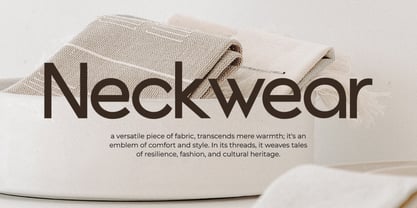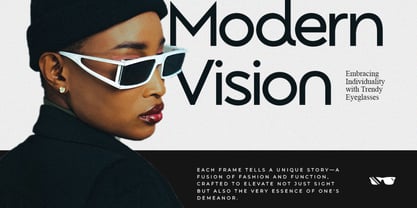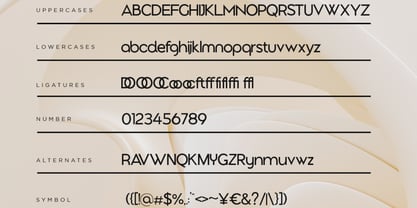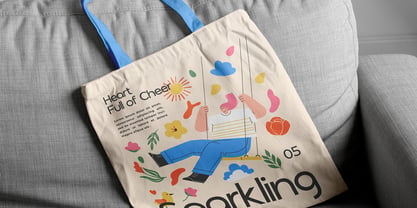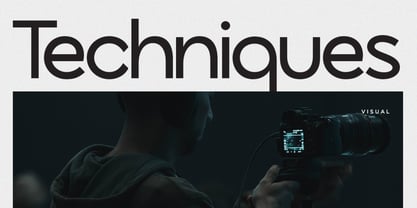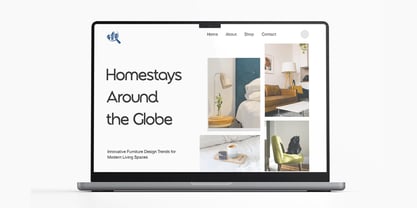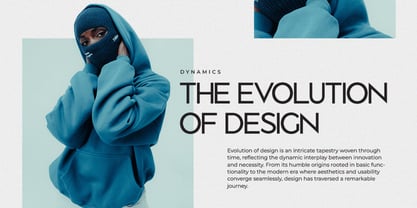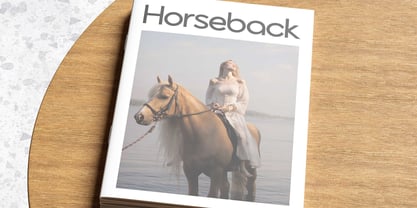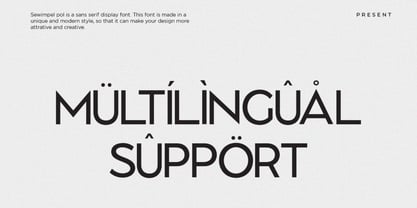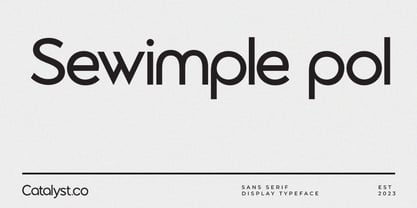
Sewimple Pol
Sewimpel Pol is a modern sans serif display font designed with a unique and minimal style to bring a clean and creative touch to your design projects. Its well-balanced letterforms, smooth geometric shapes, and versatile structure make it ideal for branding, web design, UI/UX interfaces, editorial layouts, and minimalist promotional materials. Sewimpel Pol is highly suitable for designers, creatives, and professionals who need a clean, modern font for digital and print use. Its refined geometric shapes and excellent legibility make it perfect for branding identities, digital interfaces, editorial layouts, packaging, social media graphics.